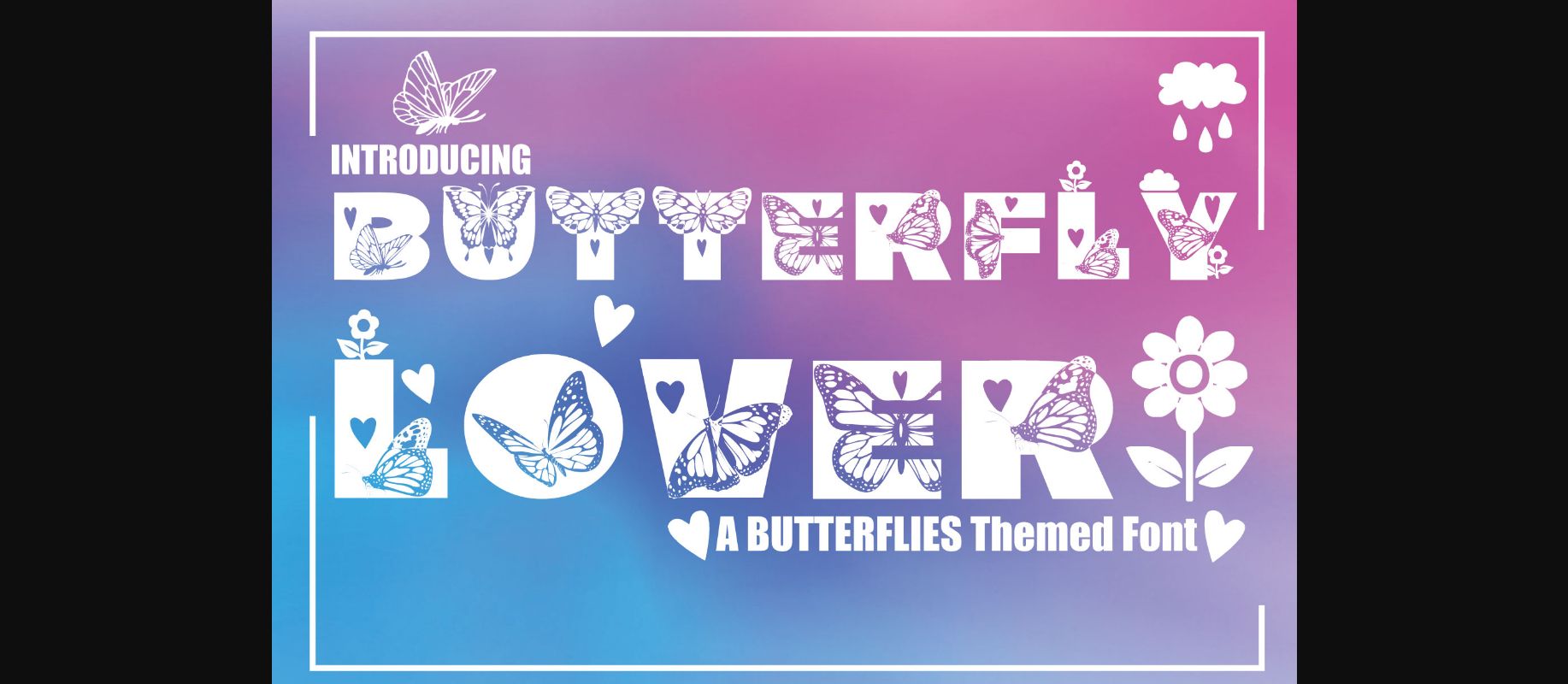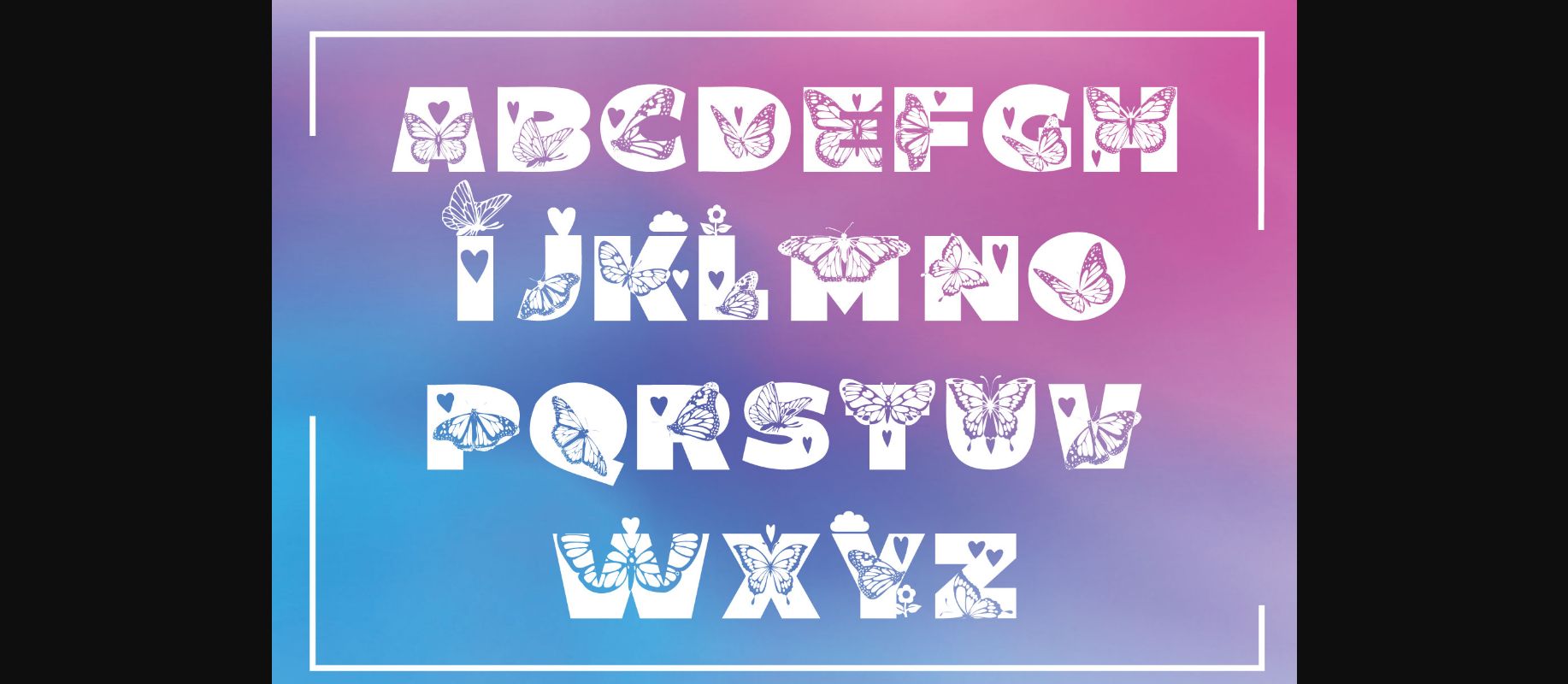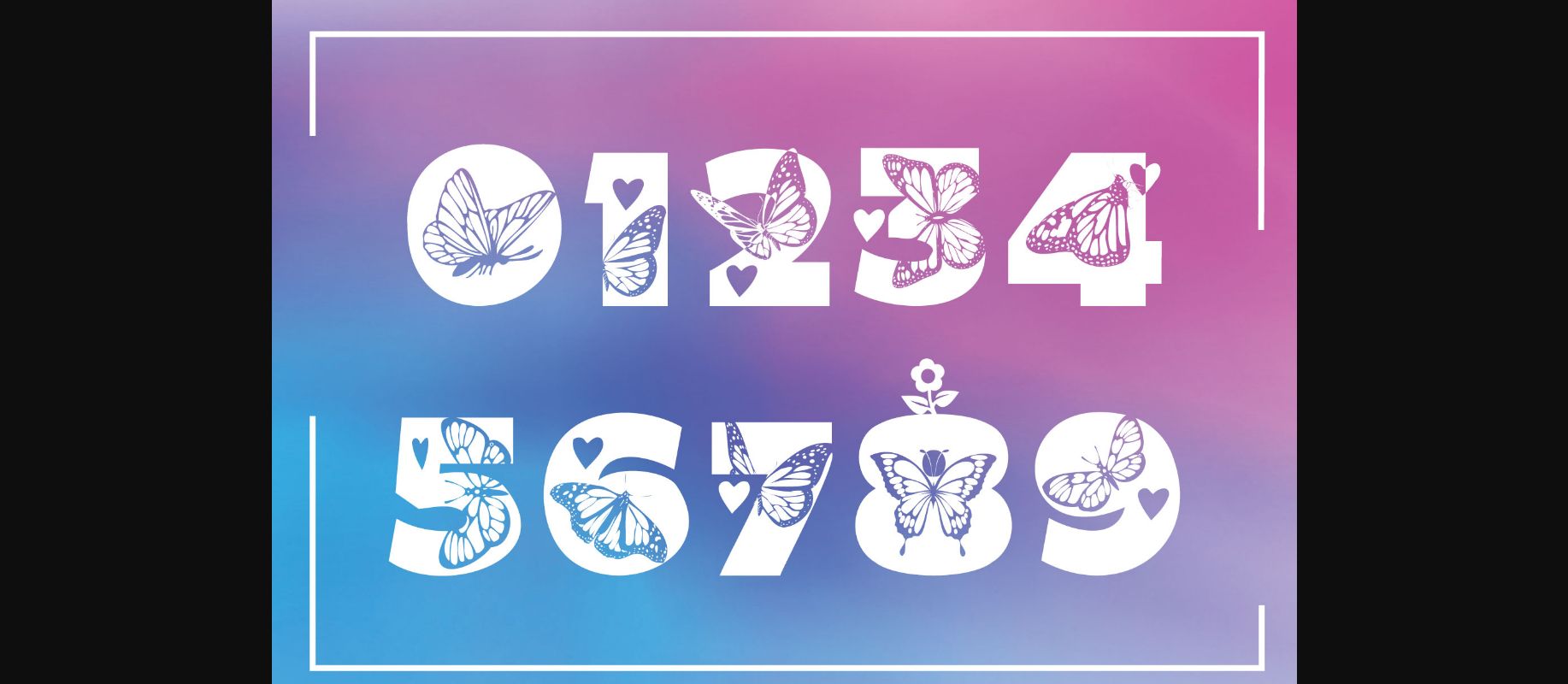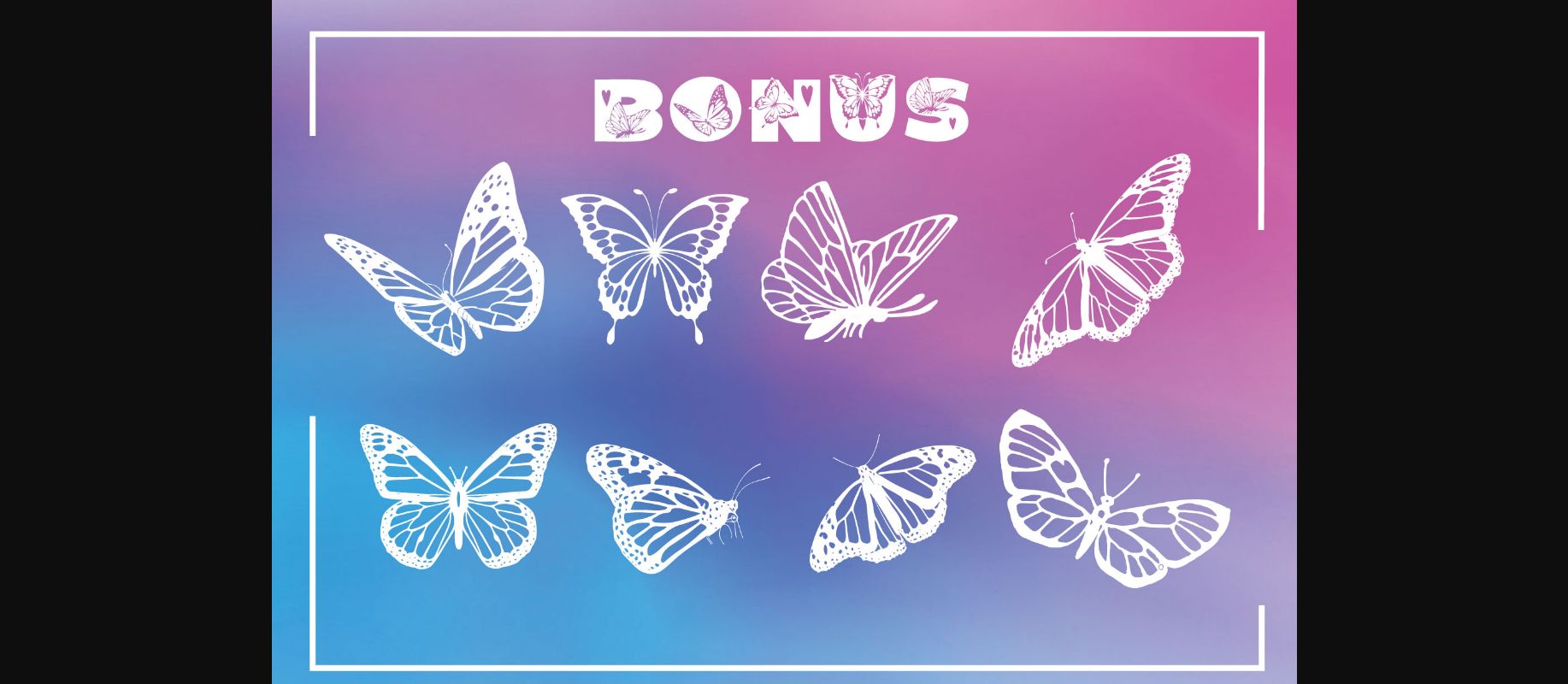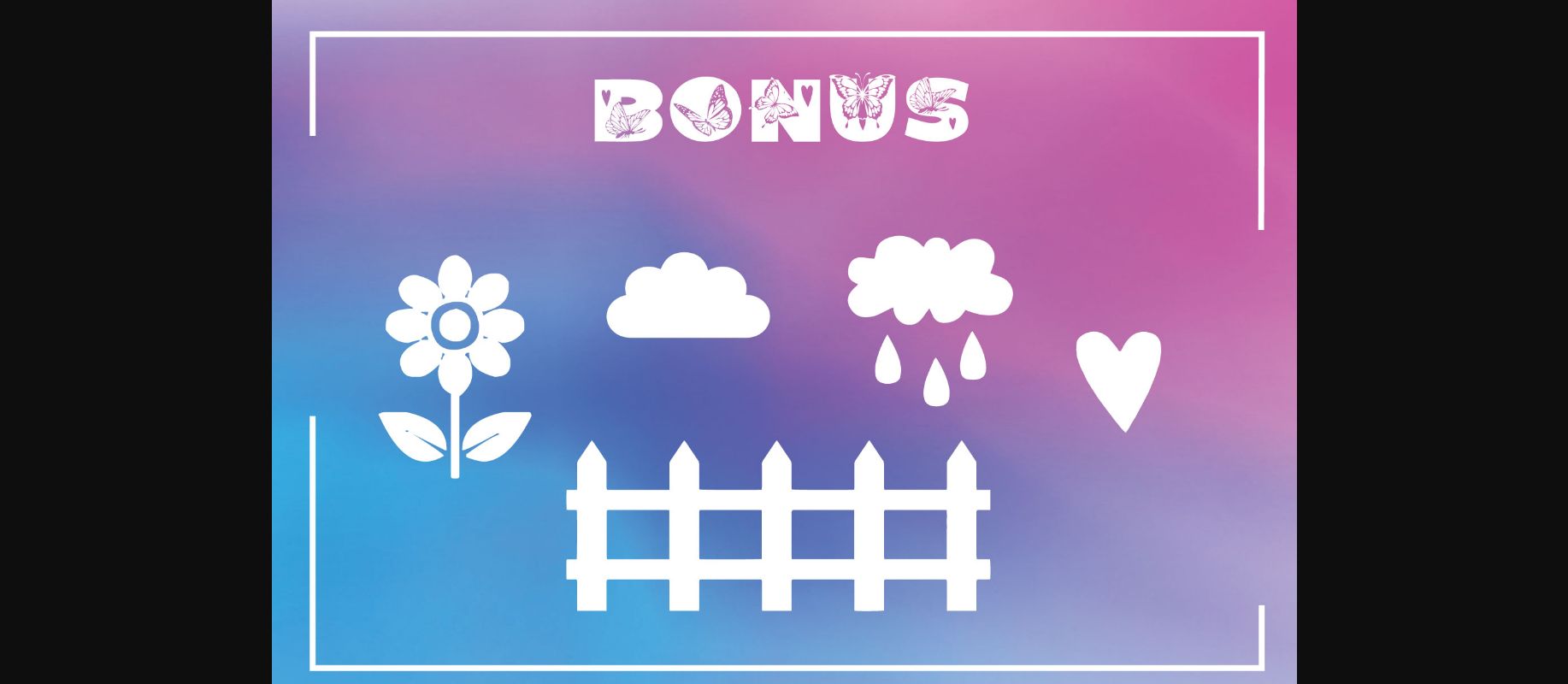
Butterfly Lover Font
About Butterfly Lover Font
Butterfly Lover is a bold yet incredibly whimsical decorative font. Whether you are using it for cartoon-related designs, children’s games, quotes, titles, brand names, book covers, posters, or just any creation that requires a touch of beauty, this font is a great choice.